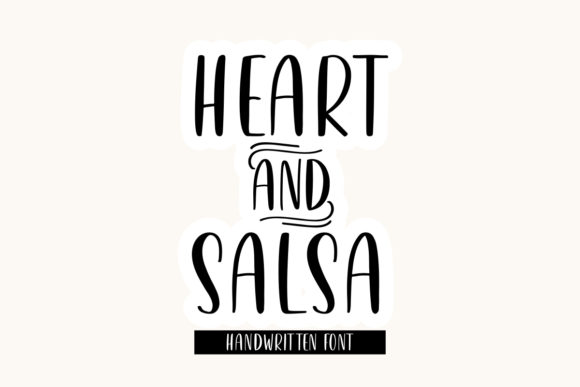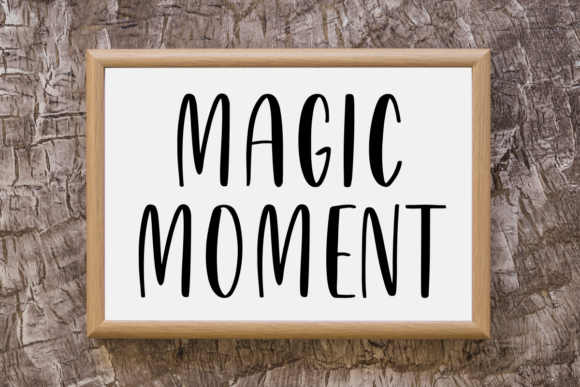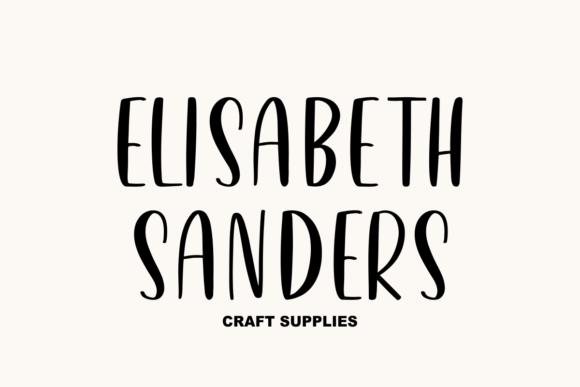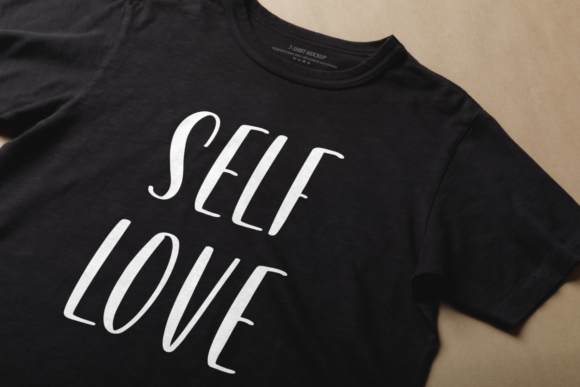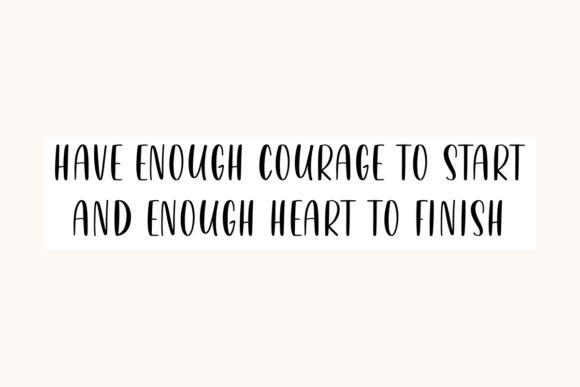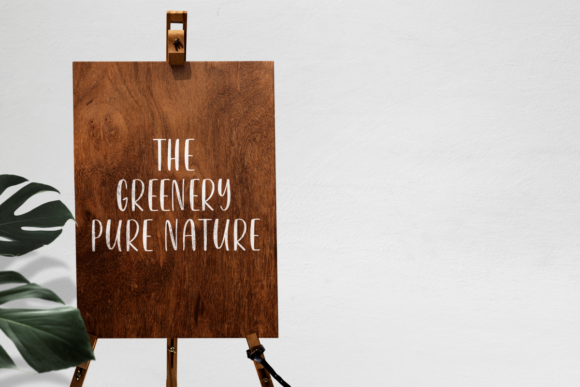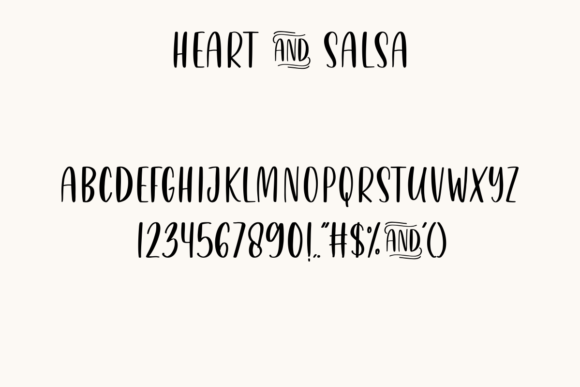
Heart & Salsa Font
About Heart & Salsa Font
Introducing Heart & Salsa, a laid-back and friendly handwritten font that exudes joy and cheerfulness. With its charming and relaxed style, this font is a wonderful addition to your fonts’ library, capable of enhancing any creation.
Heart & Salsa brings a playful and light-hearted vibe to your designs. Its casual and handwritten appearance adds a personal touch, making it perfect for a wide range of projects. Whether you’re working on invitations, greeting cards, social media graphics, or any other design, Heart & Salsa will infuse your creations with a sense of happiness and positivity.
The versatility of Heart & Salsa knows no bounds. It is well-suited for various themes and topics, from festive occasions and celebrations to everyday designs that need a touch of whimsy. Its friendly and approachable nature makes it an excellent choice for creating engaging and relatable content that resonates with your audience.
With Heart & Salsa, your designs will stand out. The font’s unique and handcrafted style captures attention and adds a distinctive flair. Each letter has its own character, bringing energy and personality to your typography.
In addition to its delightful appearance, Heart & Salsa is also user-friendly. It is easy to read and legible, ensuring that your message is effectively conveyed to your audience. Its smooth and consistent letterforms make it a reliable choice for both print and digital projects.
Heart & Salsa is a font that brings joy and cheerfulness to your designs, allowing you to create captivating and memorable visuals. Its laid-back nature encourages creativity and experimentation, giving you the freedom to explore different design possibilities.
Whether you’re creating invitations for a lively event, designing cheerful social media posts, or crafting vibrant greeting cards, Heart & Salsa is the perfect companion. Its ability to elevate any creation and infuse it with a sense of joy and warmth makes it an invaluable asset to your font library.
In summary, Heart & Salsa is a laid-back and friendly handwritten font that radiates joy and cheerfulness. Its versatile nature allows it to enhance a wide range of projects, while its unique and handcrafted style captures attention. With its readability and user-friendly nature, Heart & Salsa empowers you to create engaging and delightful designs that leave a lasting impression.